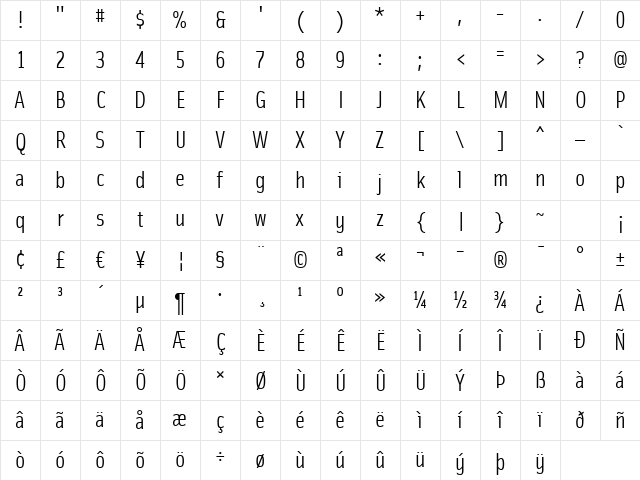
SolexRegularLining Regular
Copyright: Copyright (C) 2000, Emigre Inc.; Designed by Zuzana Licko
Foundry: Emigre Inc.
Designer: Zuzana Licko
Design Context for SolexRegularLining
SolexRegularLining is a composed and adaptable typeface that performs quietly and consistently across a wide range of design contexts.